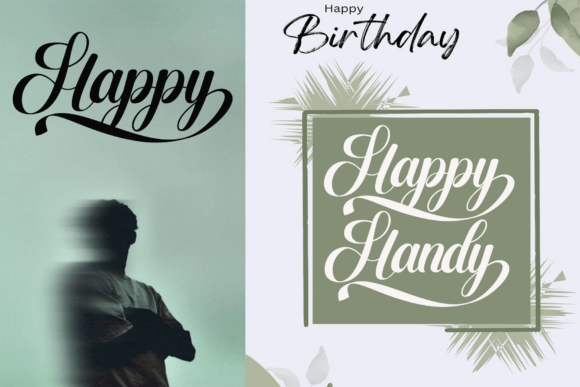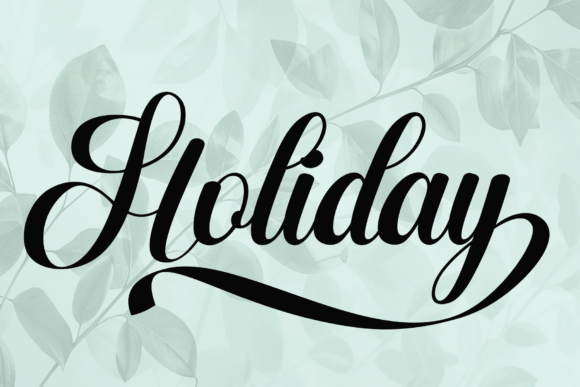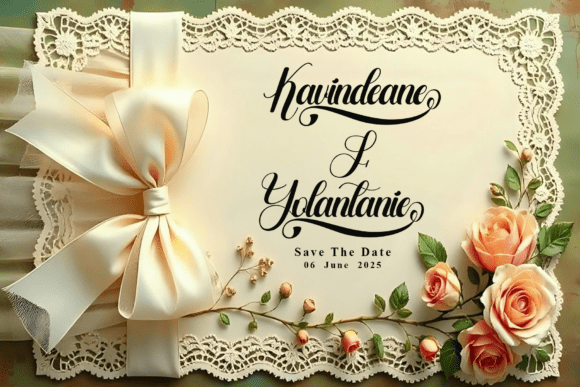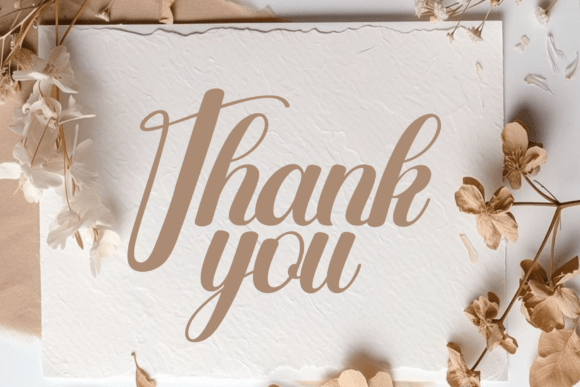
Introducing Handmade Font: The Epitome of Elegance and Sophistication
In the realm of typography, few fonts manage to capture the essence of charm and sophistication as effortlessly as Handmade Font. This beautifully flowing script font is a masterclass in elegance, boasting smooth curves and a handwritten feel that instantly elevates any design project. Whether you’re a designer looking for the perfect font to enhance your client’s wedding invitation or a crafter seeking to add a touch of romance to your packaging, Handmade Font is the ideal choice.
The Characteristics of Handmade Font
Handmade Font is distinguished by its fluid, cursive strokes that dance across the page with a sense of whimsy and grace. Each letter is meticulously crafted to ensure a seamless flow, creating a sense of continuity and harmony. The font’s handmade feel is both personal and inviting, making it perfect for projects that require a touch of warmth and intimacy.
Ideal Uses for Handmade Font
The versatility of Handmade Font is one of its most compelling attributes. This font can be used in a variety of design projects, including:
- Wedding Invitations: Add a touch of romance and sophistication to your wedding invitations with Handmade Font. Its elegant flow and cursive strokes create a beautiful, memorable first impression.
- Personal Branding: Establish your personal brand with a unique and stylish font. Handmade Font’s charm and character can help you stand out in a crowded market.
- Elegant Packaging: Elevate your product packaging with a font that exudes luxury and refinement. Handmade Font is perfect for high-end products that require a sophisticated touch.
- Romantic Quotes: Share your love with beautifully designed romantic quotes. Handmade Font’s flowing script is ideal for creating heartfelt and visually stunning quotes.
Why Designers and Crafters Love Handmade Font
Designers and crafters alike are drawn to Handmade Font for several reasons:
- Easy to Read: Despite its elegant and cursive nature, Handmade Font remains highly legible, making it suitable for both headings and body text.
- Customizable: The font comes in various weights and styles, allowing for endless creative possibilities and flexibility in your designs.
- Unique Aesthetic: Handmade Font offers a distinctive look that sets it apart from more traditional fonts. Its unique aesthetic can help your designs stand out.
Tips for Using Handmade Font Effectively
To get the most out of Handmade Font, consider the following tips:
- Pair with Simple Fonts: For maximum impact, pair Handmade Font with simpler, sans-serif fonts. This contrast will highlight the font’s elegant features.
- Use for Headlines and Accents: While beautiful, Handmade Font can be overwhelming in large blocks of text. Use it for headlines, titles, and accents to add visual interest.
- Experiment with Colors: Handmade Font looks stunning in a variety of colors, especially pastels, gold, and navy blue, which enhance its romantic and sophisticated vibe.
Handmade Font is a beautifully crafted script font that brings a touch of elegance and charm to any design project. Its smooth curves, handwritten feel, and flowing script make it perfect for a variety of applications, from wedding invitations to elegant packaging. Designers and crafters will love the font’s readability, customizability, and unique aesthetic. By incorporating Handmade Font into your designs, you’ll add a level of sophistication and romance that’s sure to captivate your audience.